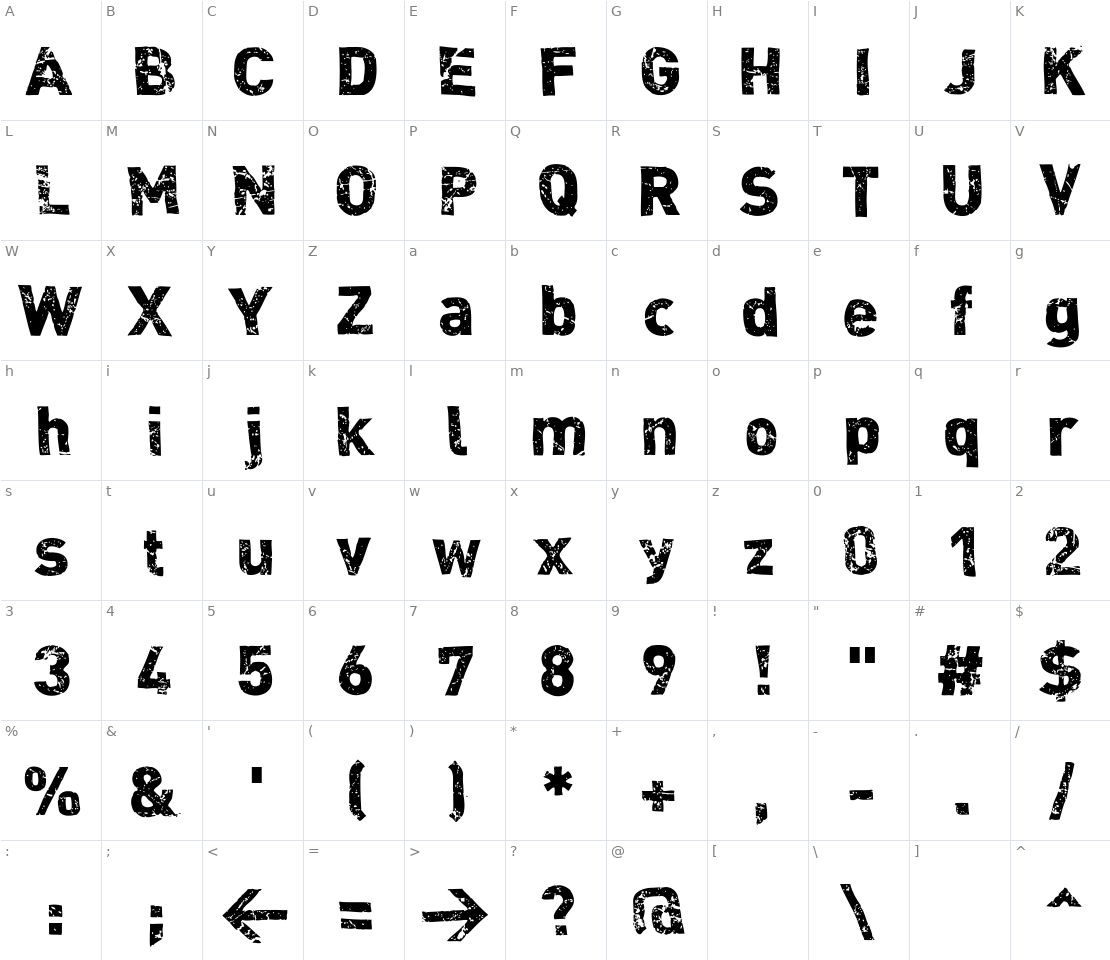
Dink
Dink is a bold, heavy display face from Tension Type with a rough, worn texture baked into every letterform. The grunge treatment feels authentic rather than applied, like ink pressed too hard into cheap paper and left to bleed. Built for headlines and short bursts of text where you want something that carries real physical weight and visible wear.